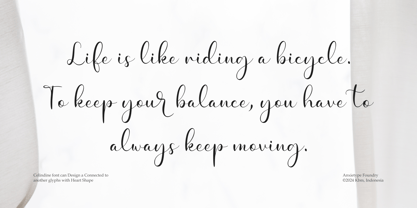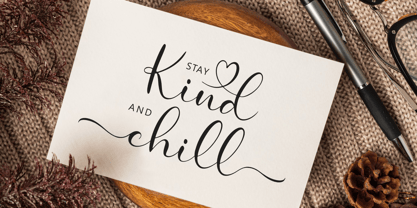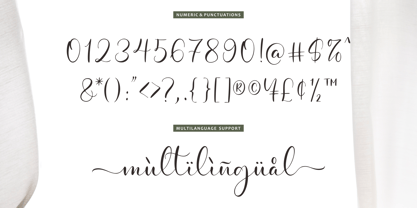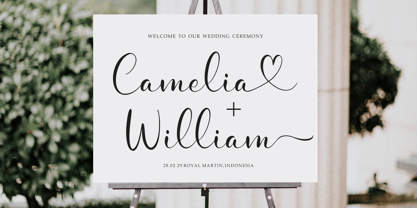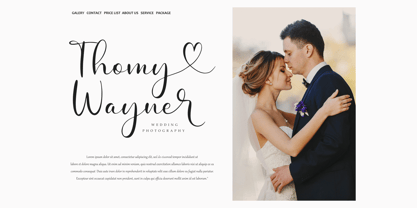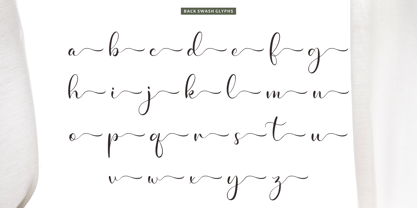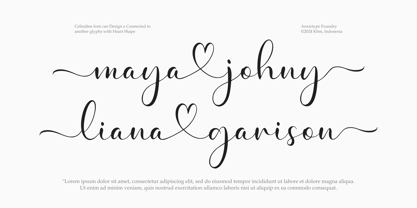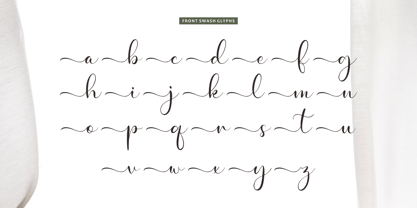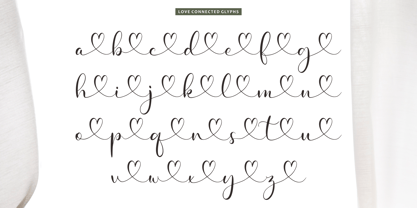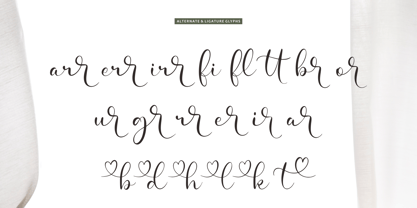
Celindine
by Anxietype Foundry
The Celindine Font Family was designed by Bias Surya Buana, Annas Rifky Anhar and published by Anxietype Foundry. Celindine contains 1 styles. More about this family
Introducing Celindine, By Anxietype Foundry a captivating and opulent Heart script font that will illuminate your creative projects. Constructed meticulously with a keen eye to detail, Celindine is set to become an indispensable part of your font repertoire. Its versatility can uplift any design endeavor whether it is for branding projects, crafting, logo design or invitations. More so, it undeniably brings a stroke of sophistication to romantic themes and creations. This makes Celindine the quintessential font choice for expressing your heartfelt sentiments, may it be for a wedding, a Valentine’s design or for a gift to someone dear to your heart. Expect a revitalized and striking aesthetic with this product.
Designers: Bias Surya Buana, Annas Rifky Anhar
Foundry: Anxietype Foundry